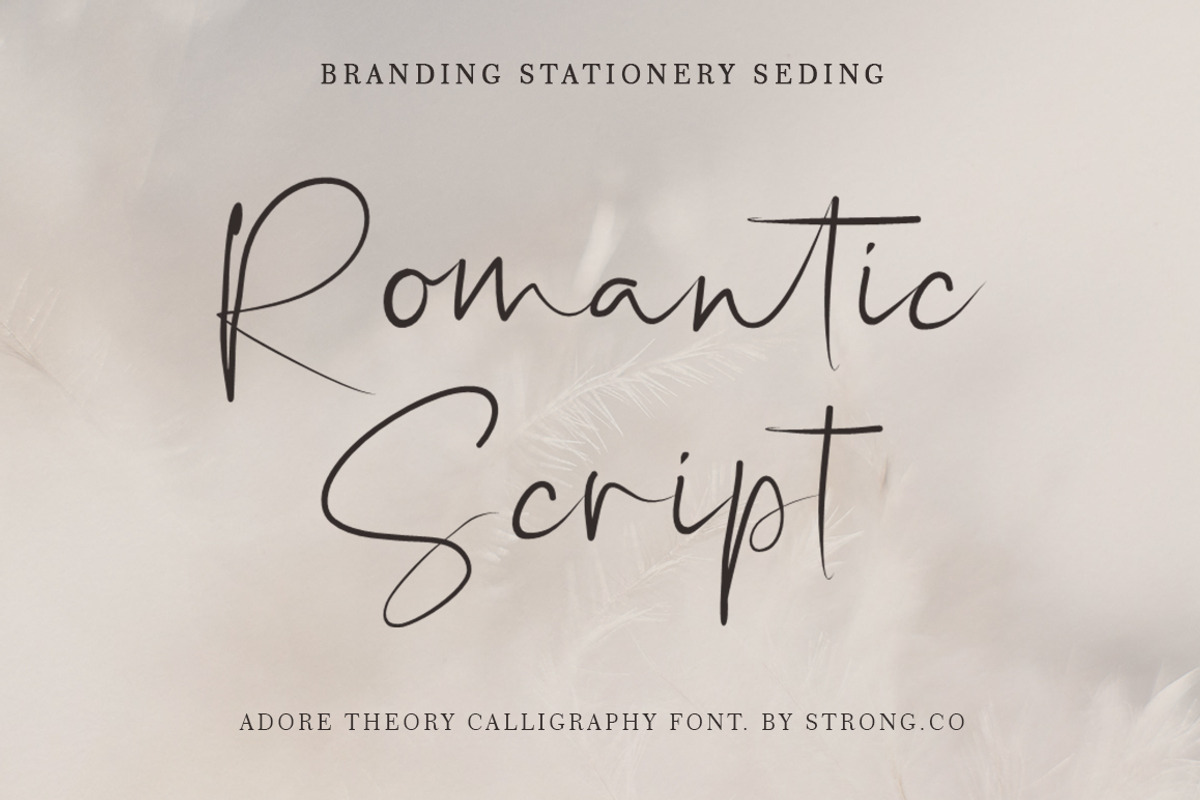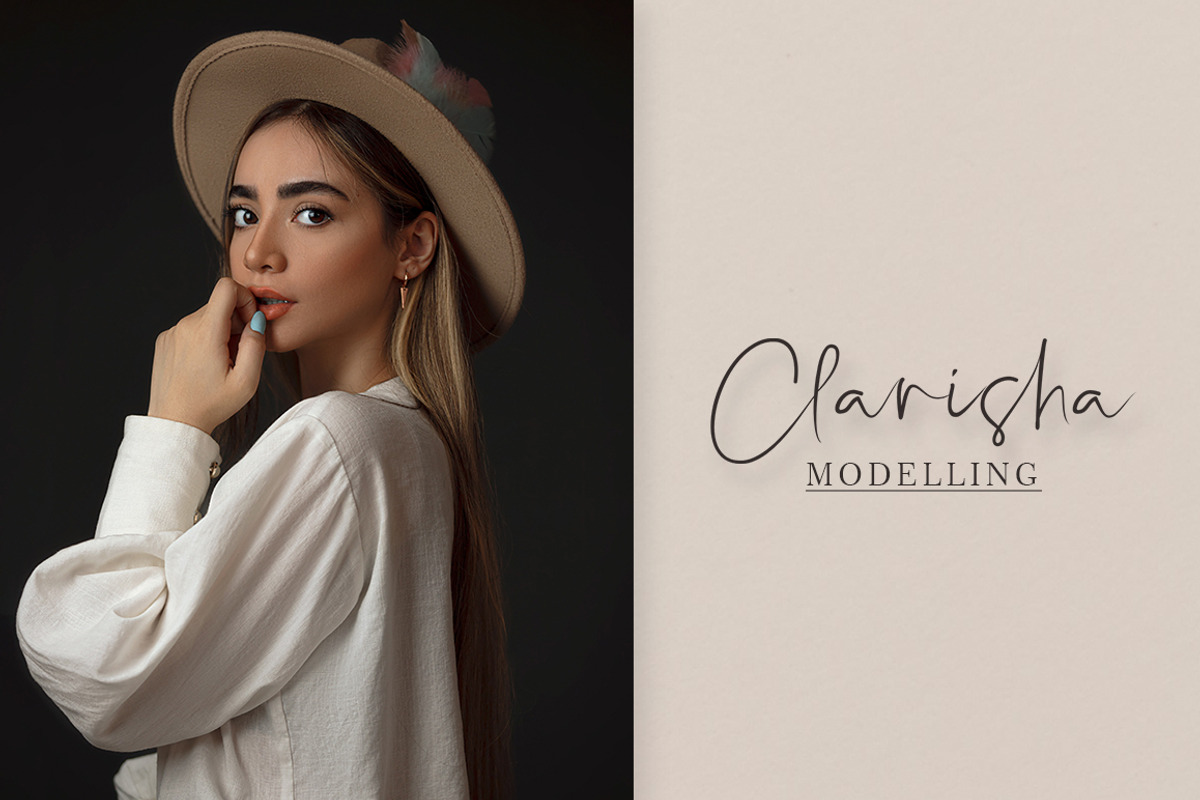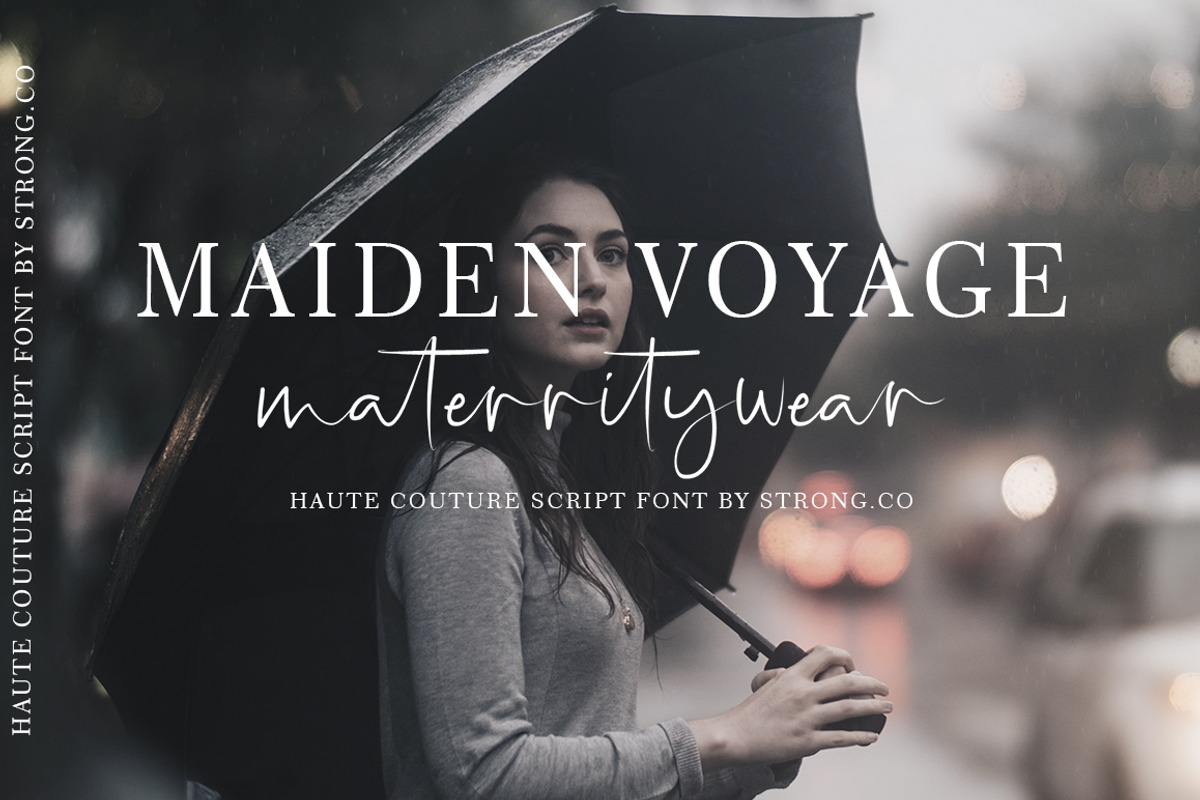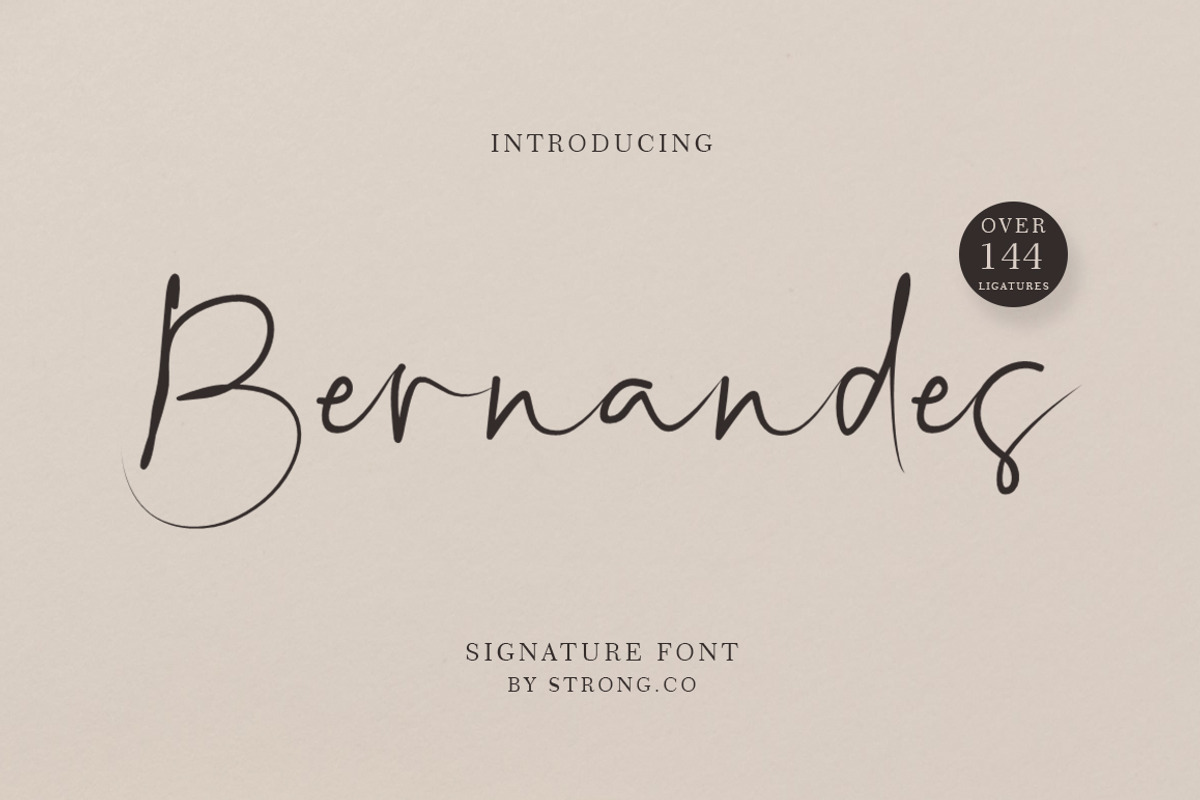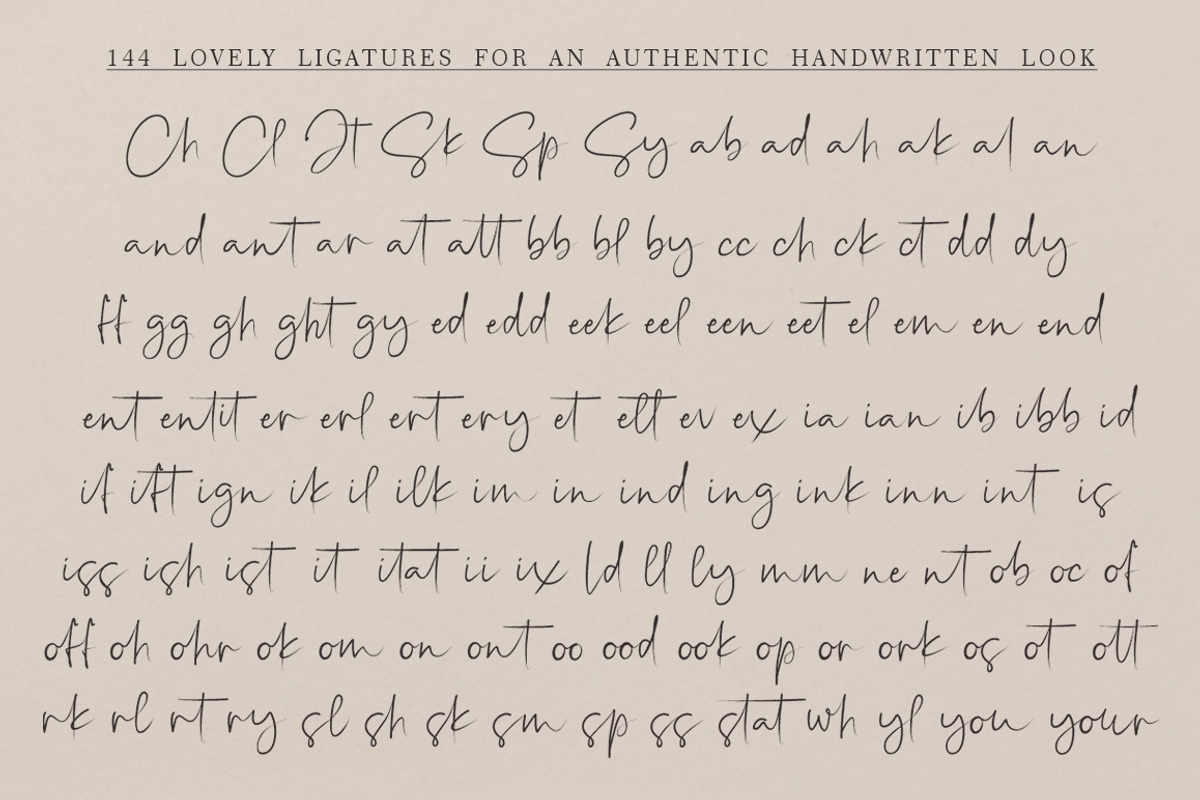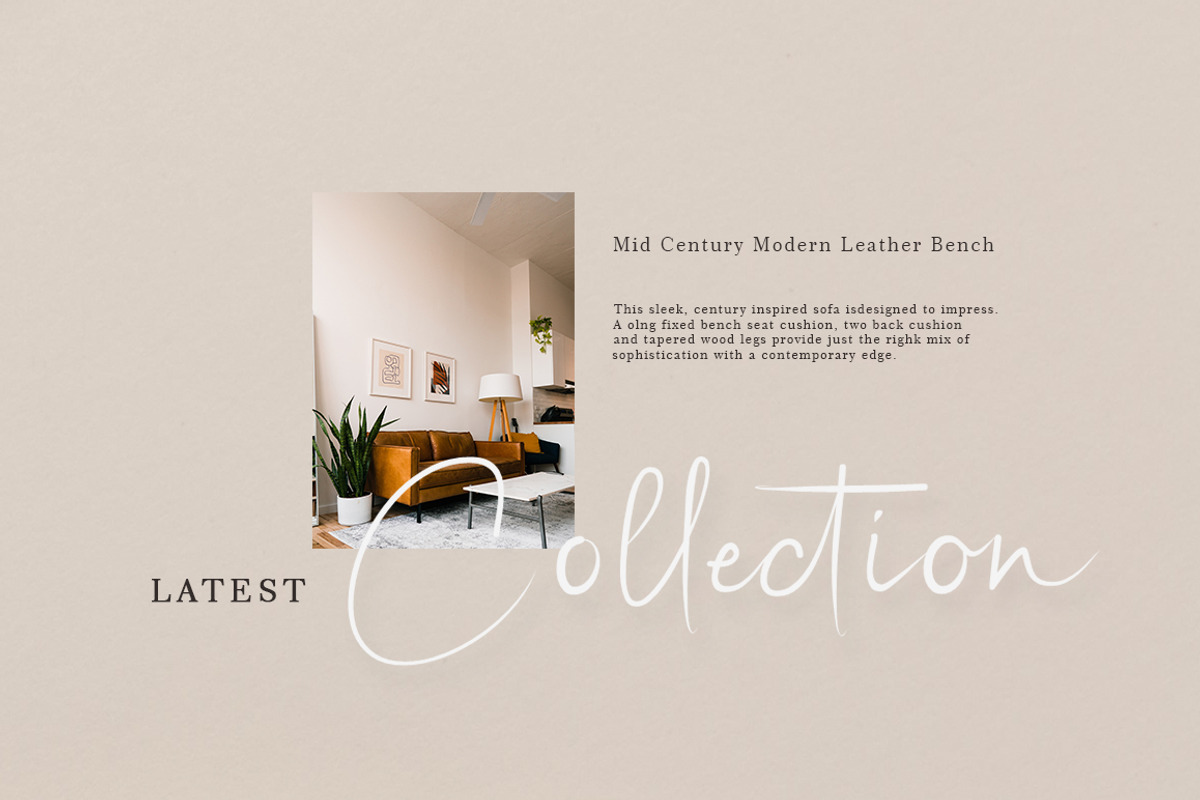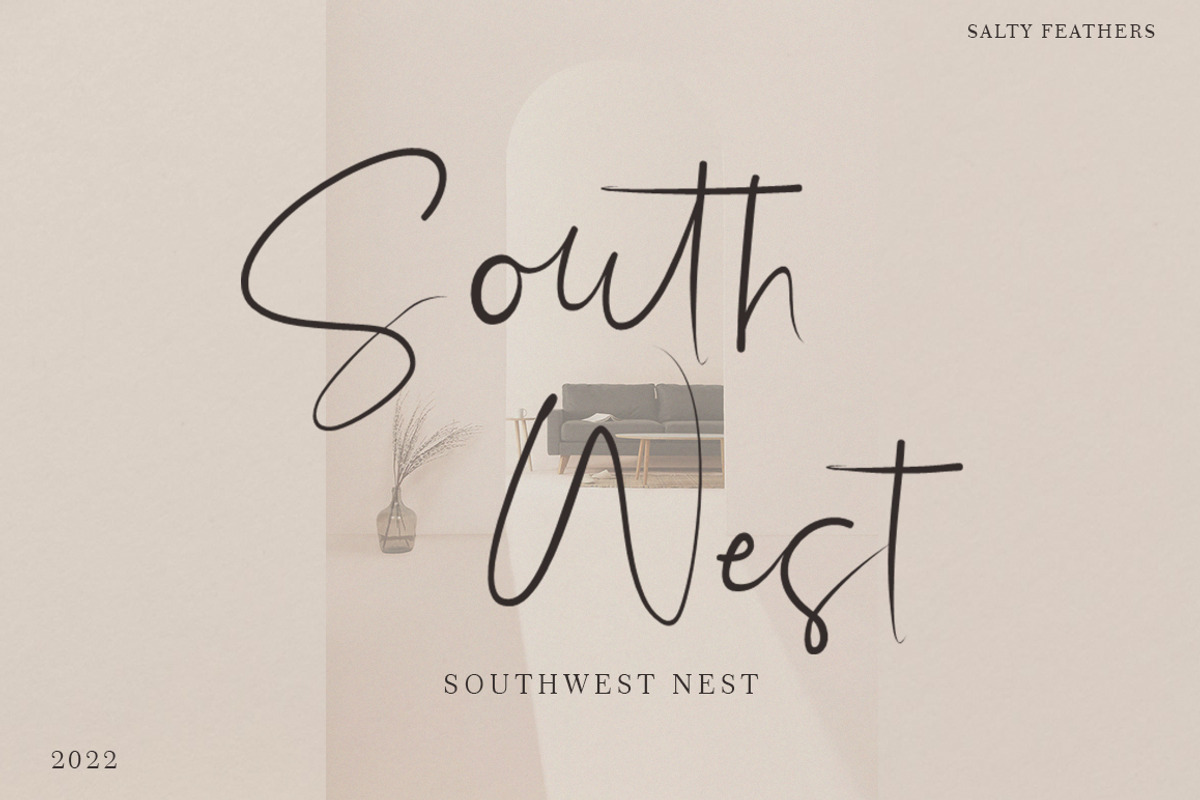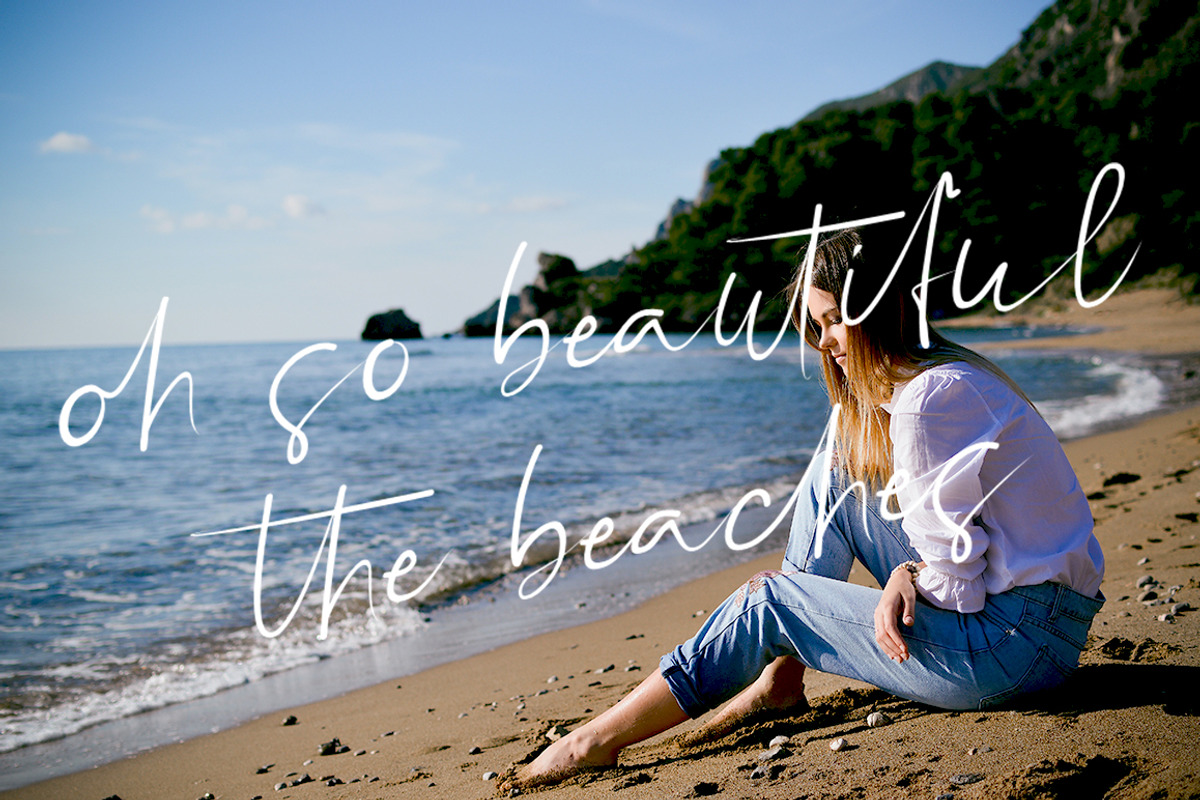
Bernandes Script
Introducing our new gorgeous calligraphy font, Bernandes Script! A beautiful script for those who wish to enhance their designs with elegance and style.
Bernandes Script includes a full set of uppercase and lowercase regular letters, numerals, punctuation, and 144 ligatures. There are three different swashes for each lowercase letter so you can easily give your designs a natural, yet sophisticated, hand-calligraphy look.
Bernandes Script is a wonderful choice for wedding invitations, save-the-date cards, feminine branding, upscale packaging, websites, and any other projects requiring a handwritten and luxurious touch.